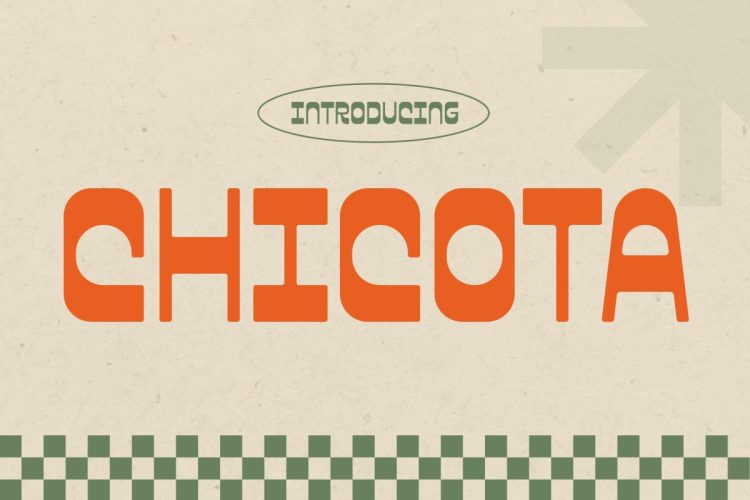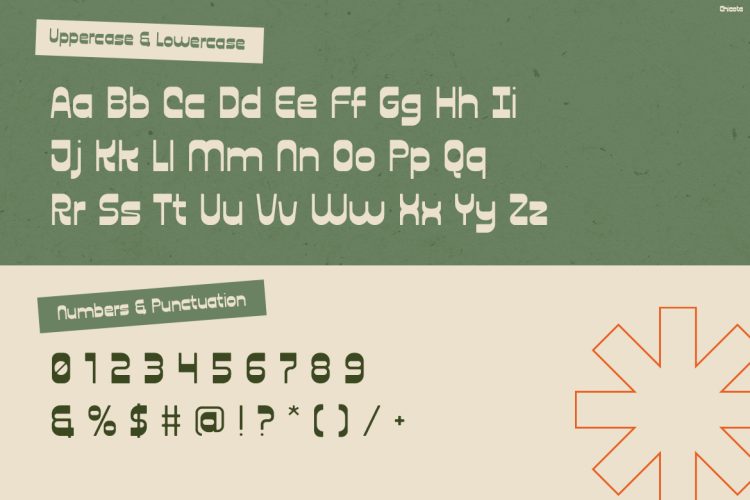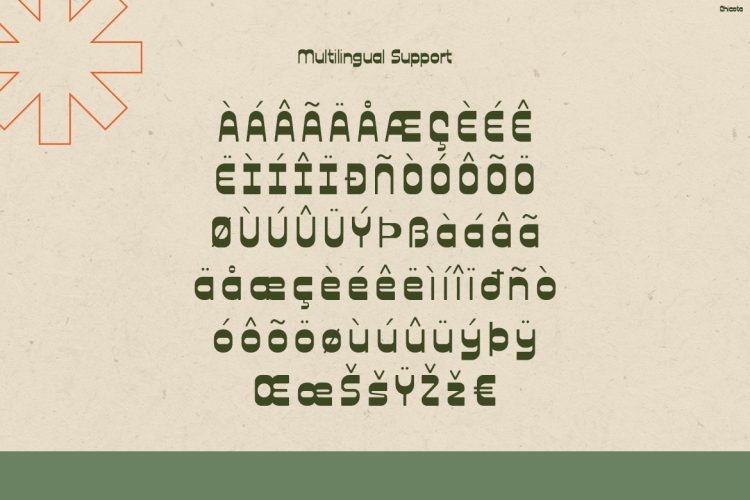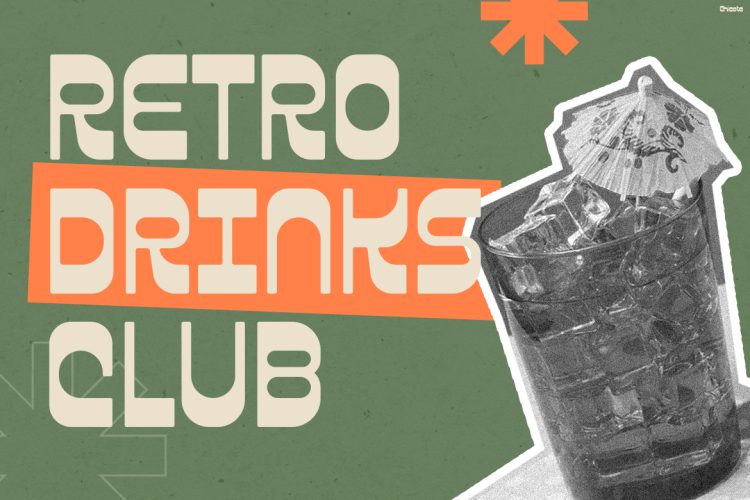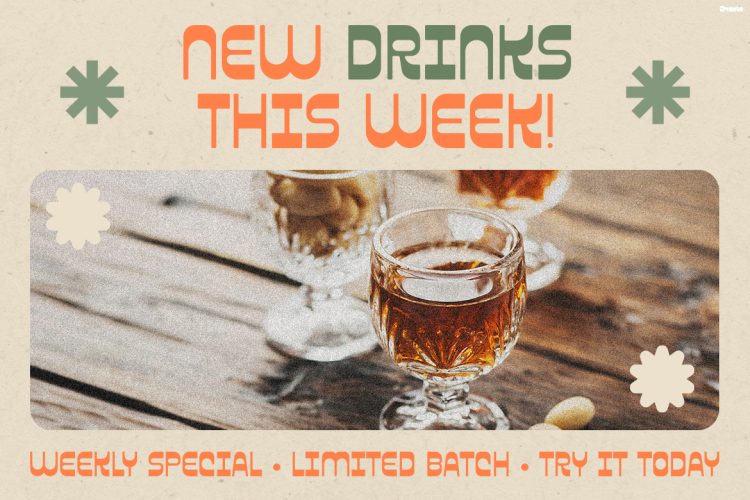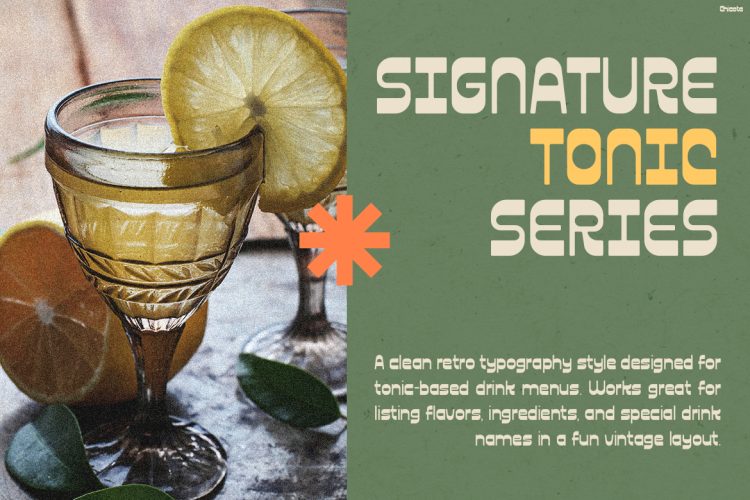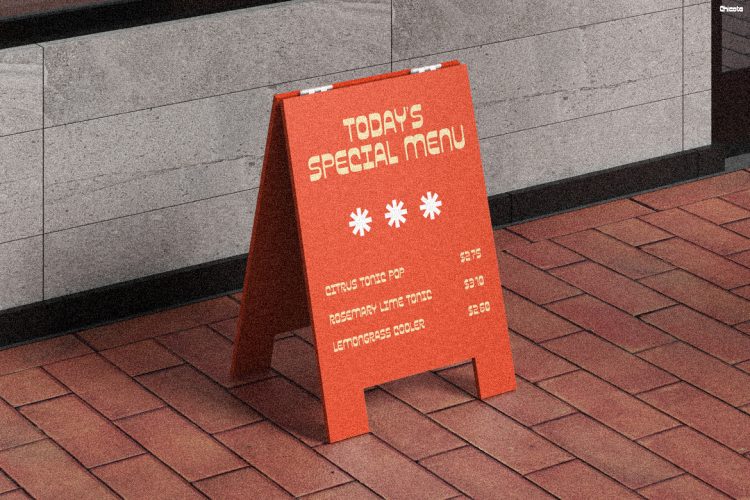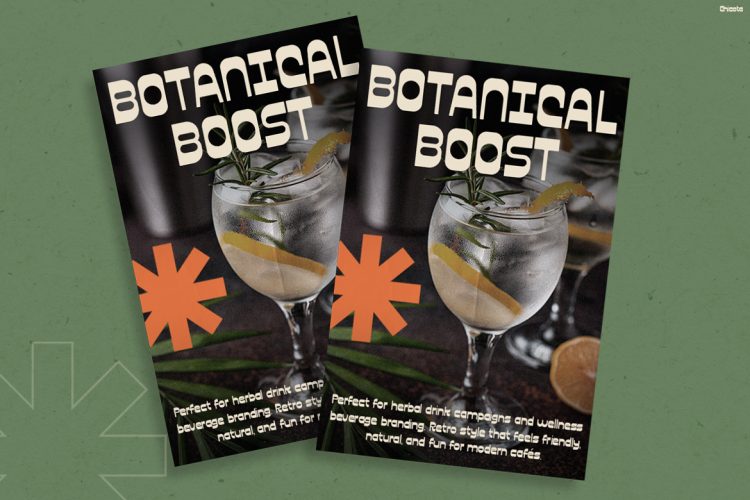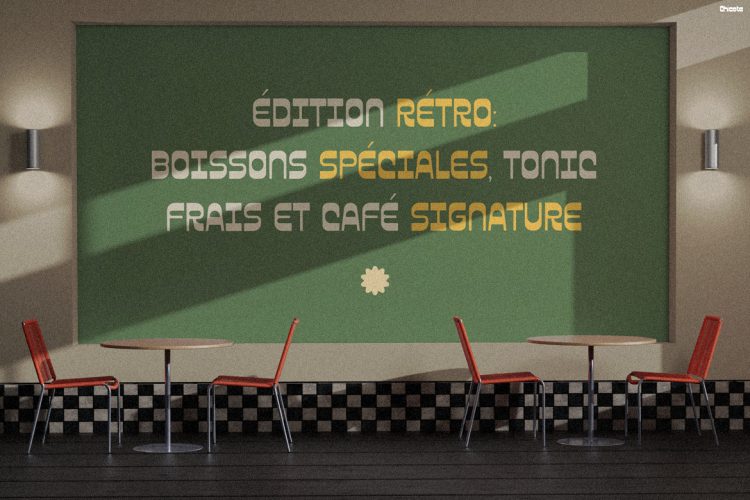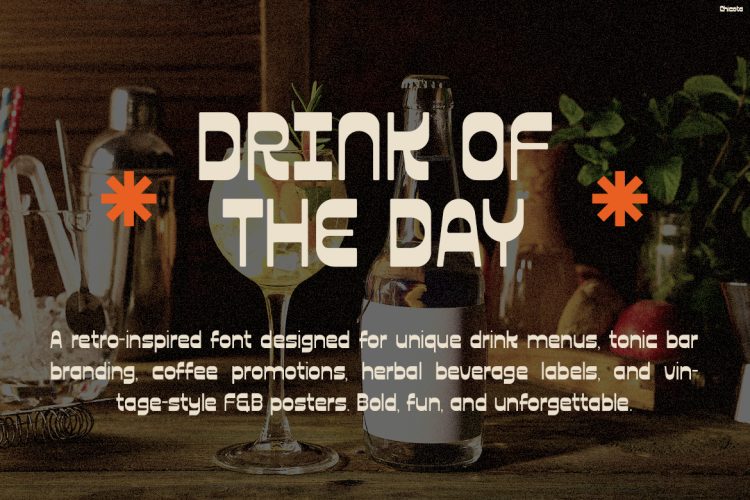
Retro Font Chicota โ Funky Vintage Flavor That Pops
Retro Font Chicota brings a playful retro aesthetic with chunky curves, funky geometric shapes, and bold vintage energy that instantly makes designs stand out. Moreover, the unique letterforms create a nostalgic atmosphere inspired by classic cafรฉ signs, retro beverage ads, and stylish 70s packaging. At the same time, the font stays clean, readable, and highly versatile for modern creative projects. In addition, its eye-catching structure helps headlines pop beautifully across posters, menus, logos, social media graphics, and branding layouts. As a result, every design feels more expressive, energetic, and visually memorable. Even better, Retro Font Chicota comes with Multilingual Support for 67 languages, so your projects can connect with wider audiences worldwide more effectively.
Perfect for Creative Brands and Trendy Promotions
Designed for creators who want strong visual impact, Retro Font Chicota works perfectly for beverage branding, cafรฉ menus, cocktail promotions, retro packaging, restaurant signage, posters, merchandise, and social media campaigns. Furthermore, the bold vintage style adds extra personality to both digital and print designs. Whether you are building a trendy cafรฉ identity or creating eye-catching promotional graphics, this font delivers a stylish retro punch that instantly grabs attention. Additionally, the balanced letterforms keep every headline readable while still maintaining a fun and artistic retro feel. Because of its versatility, the font easily adapts to many branding styles and creative industries.
Suitable For:
- Cafรฉ & Beverage Branding
- Cocktail Promotions
- Retro Restaurant Menus
- Vintage Packaging
- Funky Logo Designs
- Posters & Flyers
- Streetwear Graphics
- Social Media Content
Give Your Designs a Retro Glow-Up
With its bold retro attitude and modern versatility, Retro Font Chicota helps projects look fresh, trendy, and impossible to ignore. Meanwhile, the nostalgic design elements create a warm vintage mood that feels stylish and timeless. Therefore, if you want branding that feels both classic and modern, this font is ready to level up your creative game instantly.